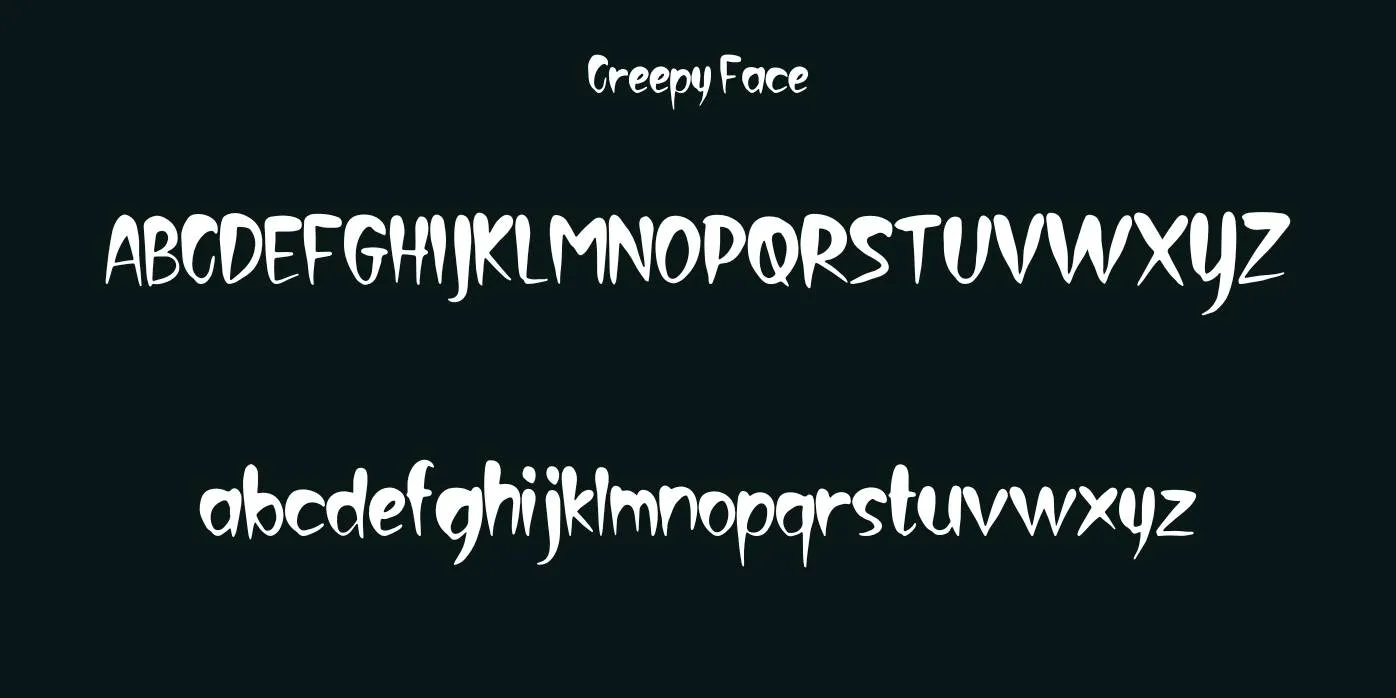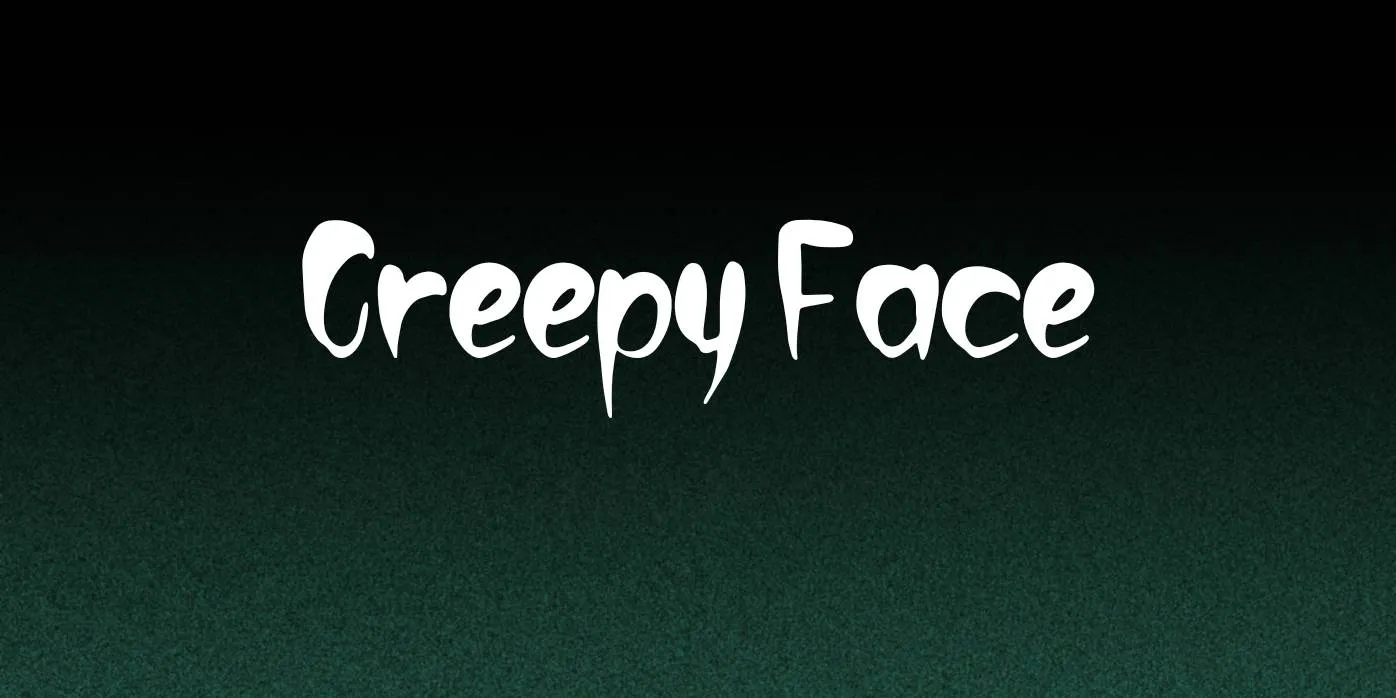
Creepy Face Font
The best texture is also available for pairing with this typeface. The upheaval font is the best font for working with this typeface. You can also try many different options, but this typeface is stunning for pairing with this typeface.